25 messy handwriting fonts
Handwritten fonts bring a personal, human touch to any design β but it's the messy, wonderfully imperfect ones that truly make projects feel alive. We've carefully curated a list of our favorite handwritten fonts that embrace imperfection, adding natural warmth, character, and authenticity to your work.
Whether you're looking for a wild scribble, a loose and playful scrawl, or a softer, more subtle script, there's something here to suit every project. Browse through our picks below β you're sure to find the perfect messy handwritten font to jazz up your next creative project.
Manic Erratic Font
Manic is truly a messy handwriting font. It's scribbly, it's scratchy and above all, it's unique.
It has a massive amount of glyphs and ligatures (650+) and each alternate's characters can be mixed and matched to create that extra messy look. Manic looks like real handwriting, like it was scrawled onto paper with a lead pencil.
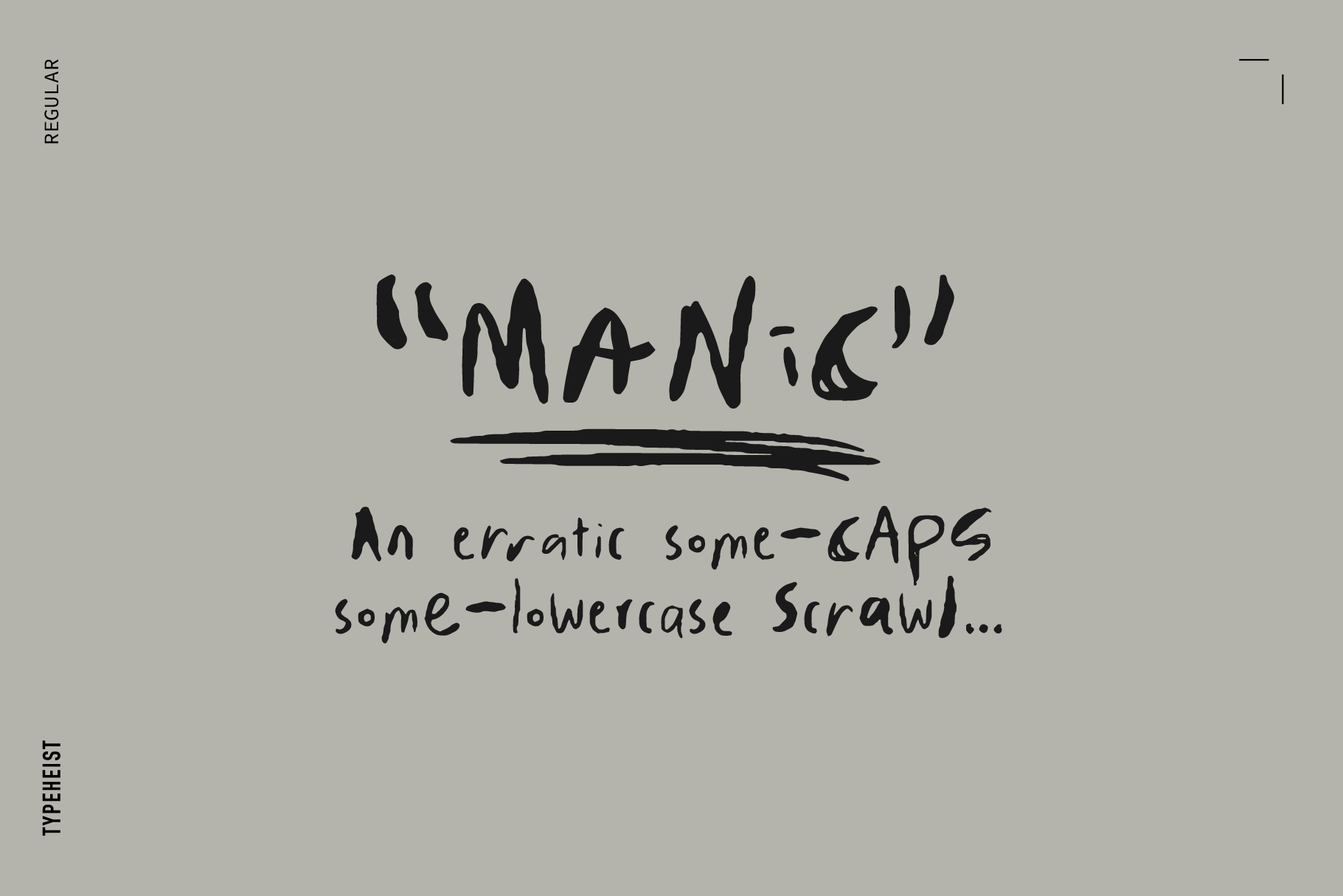
La Belle Epoque
La Belle Epoque is a charming, all-caps handwritten font with fast signature-style strokes and textured ink. It embraces it's imperfections, and that's what makes it grab your attention, especially when paired with a contrasting clean font.
This font comes with a Regular set and an Alternate Set, allowing you to mix-up different letterforms to create your own custom text layouts and maintain handwritten realism.
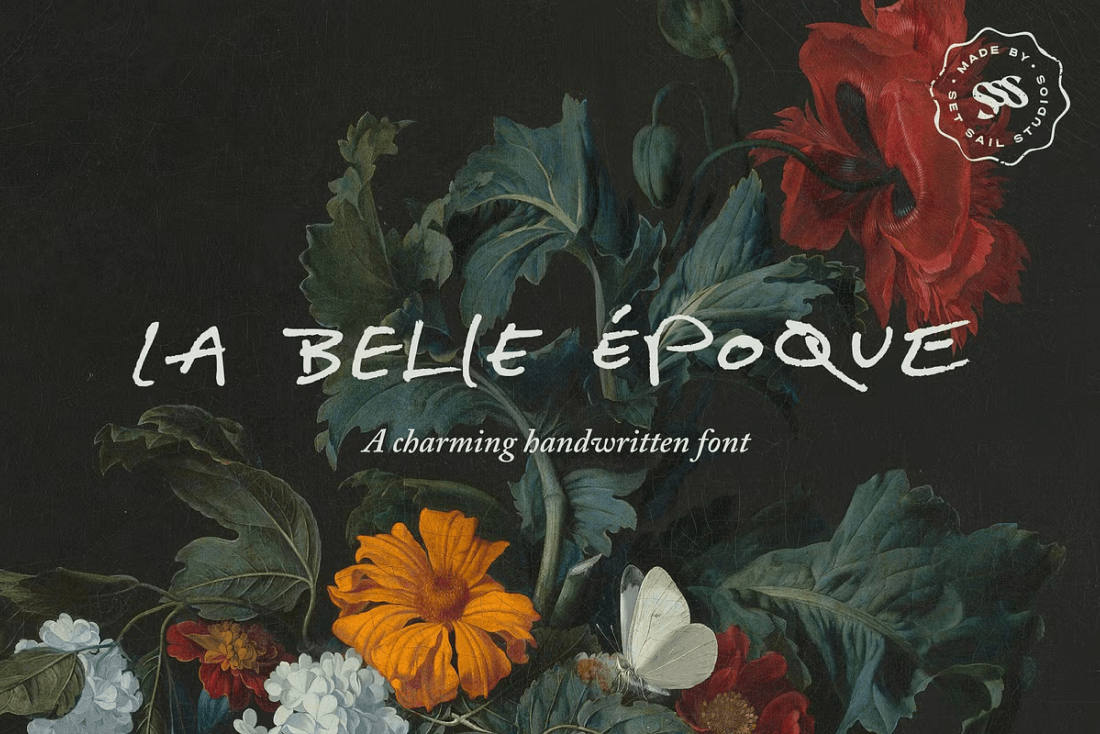
Cactus Jack
Cactus Jack is more than just a font. It's a feeling in your bones, it's a perspective on life, it's a war cry to be heard... But it's also a font. This gritty and oddly stylish font pack comes with not one BUT TWO hand drawn fonts. That's over 125 regular character variations and 50+ international language characters. This guarantees you never have to have repetitive characters in your designs. Mix-n-match to your heart's desire!
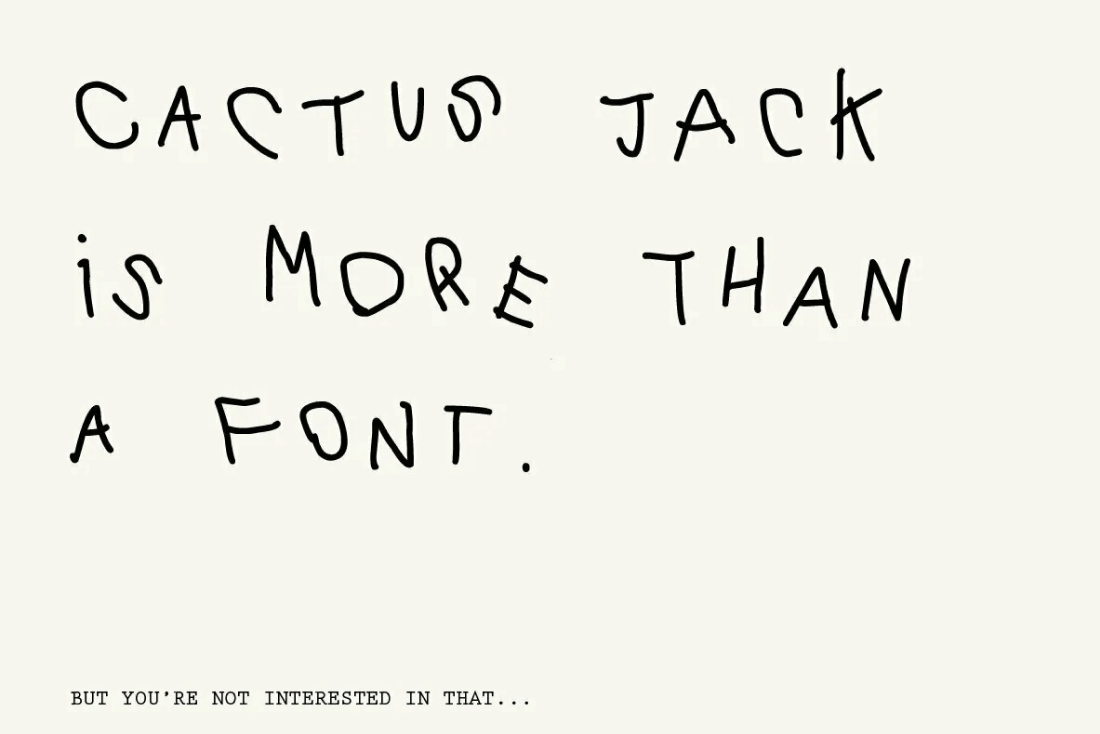
Pandemonium
"Wild uproar, unrestrained disorder; tumult or chaos". True to its name, Pandemonium font is exactly that: wild, chaotic and super erratic.
This messy handwriting font doesn't follow any rules. It's skinny, it's wide, it's bold, it's scratchy, it's jagged and unpredictable. And yet somehow, amongst it's disorder, each letter harmonises with the next one.
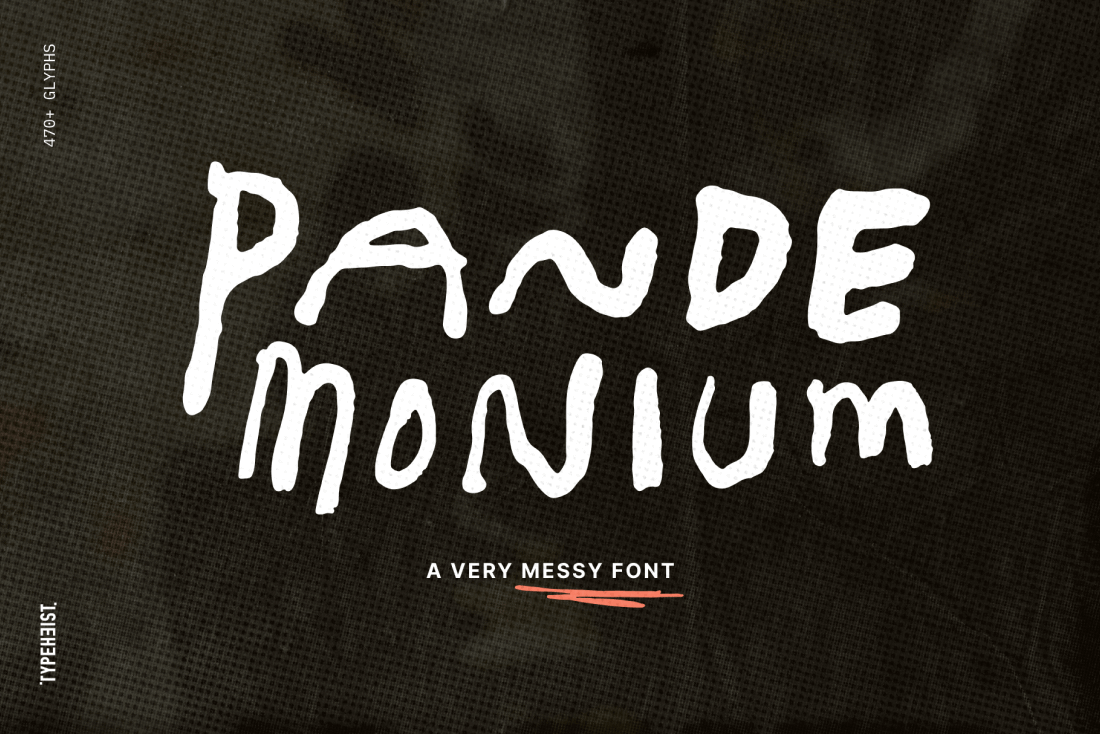
Sad Poem
A sad little pen font for your sad little handwritten poems :')
Sad Poem font boasts an extensive character set, including multi-lingual characters, custom ligatures, and an extended symbol set. With both uppercase and lowercase casing, this font provides the perfect canvas for expressing your emotions on paper.
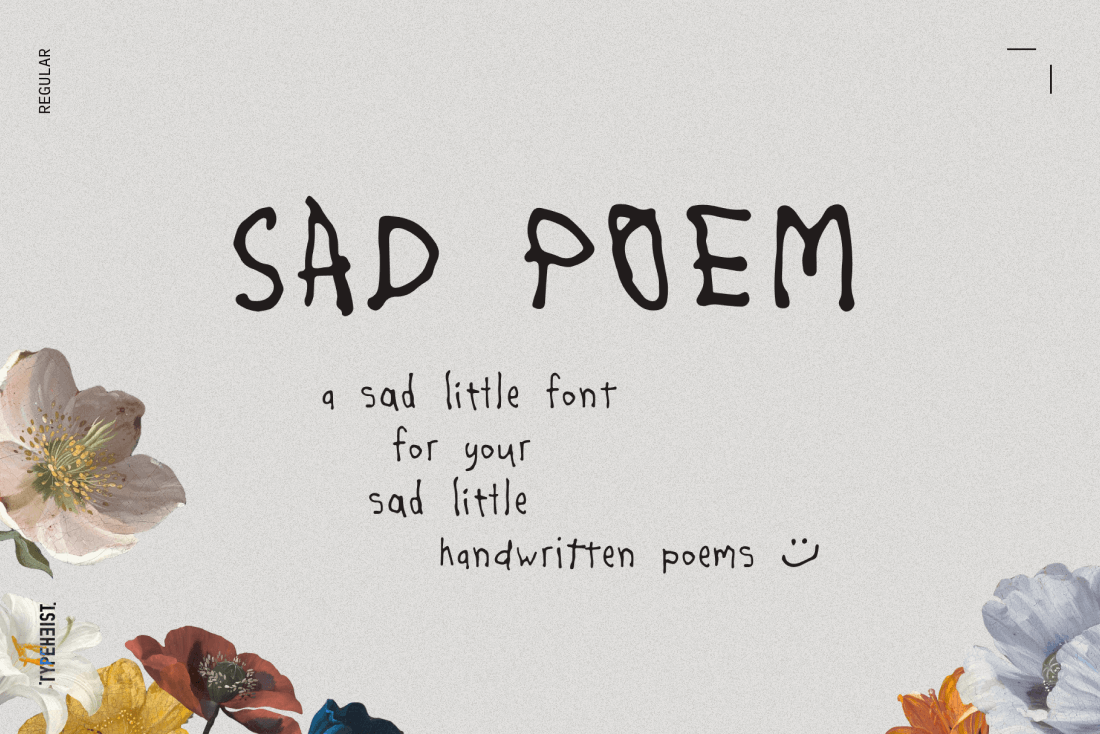
Mayflores
"Mayflores" by PeachCreme is a straightforward, brush-stroke style font with a casual, down-to-earth character.
Each letter, whether uppercase or lowercase, has its own unique twist, making it stand out in any context. With additional ligatures and alternatives, it gives you the versatility to make your design distinctive. The font preview shows exactly what you can expect, ensuring 'Mayflores' delivers a genuine touch to your projects.
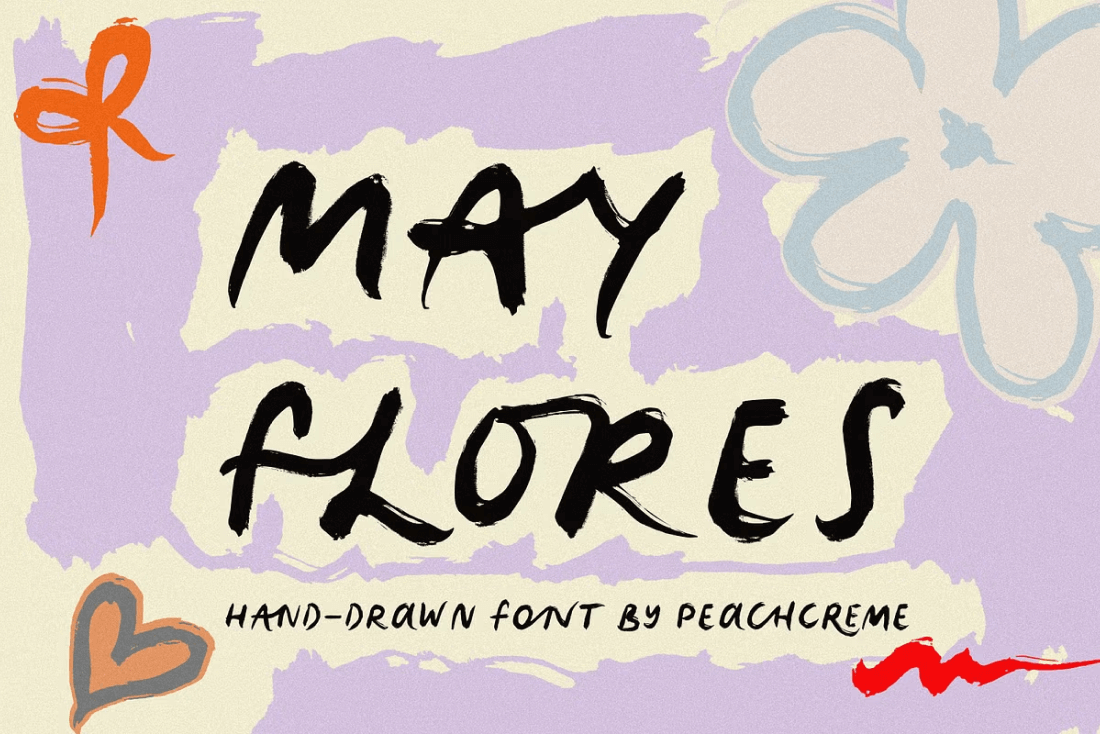
Infamous
Infamous is a slightly italicised messy handwriting font. It's rough, scratchy and has a unique textured edge.
There are over 360 unique glyphs in total in this typeface, including hand drawn scribble characters which are available by keyboard shortcuts (see images). These imperfect sketches complement the typeface perfectly, adding that extra personality to your projects.
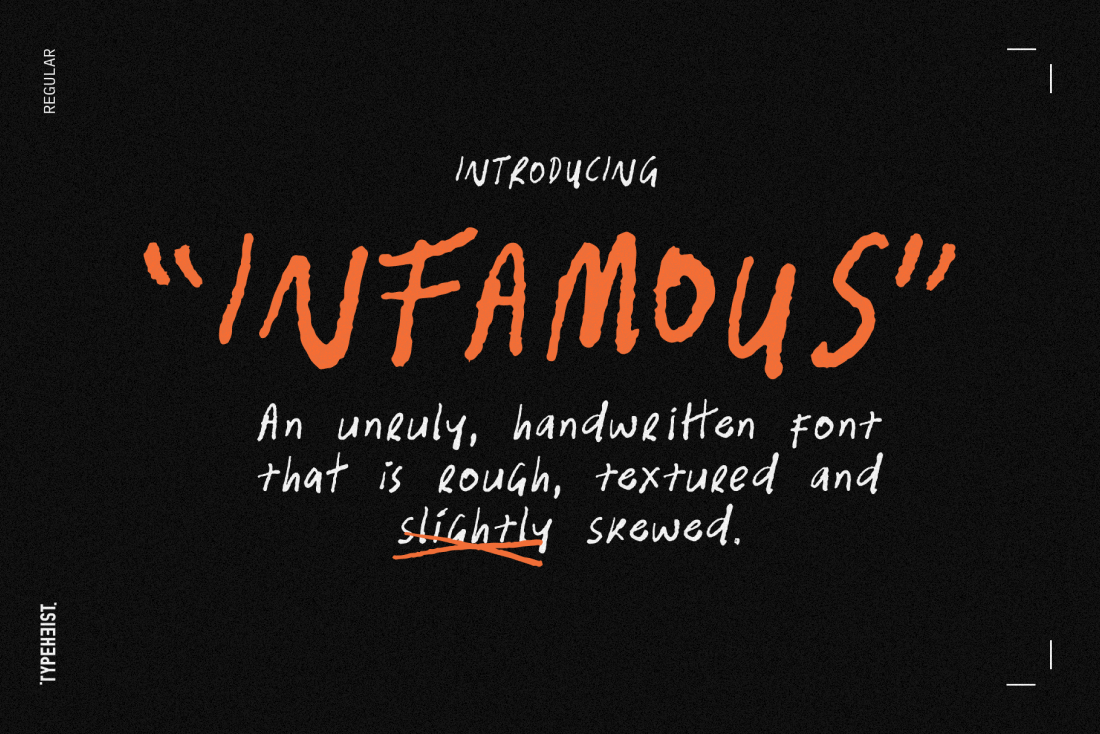
Ugly Dave
Ugly Dave is not a 'nice' font... It's messy and childish and some may even call it yuck. But you can be confident in knowing that it is most definitely unique (and it is kinda charming). It has over 500 glyphs and ligatures, ensuring that it looks just like the real deal (a bad handwriting font).
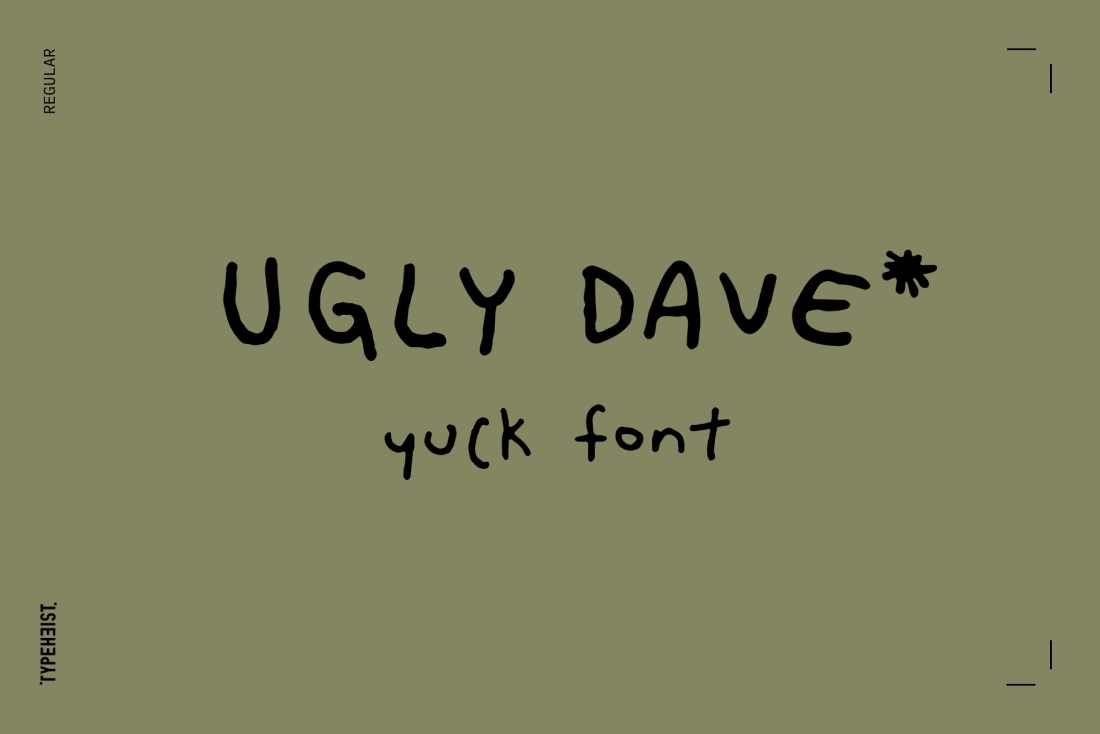
Quisas
Quisas, a pack of loosy handwriting fonts with all caps style, mix it up with uppercase and lowercase and you'll get a different vibes from it. Oh and it comes with SVG version too, just in case you need to look more natural in latest Adobe Photoshop style.
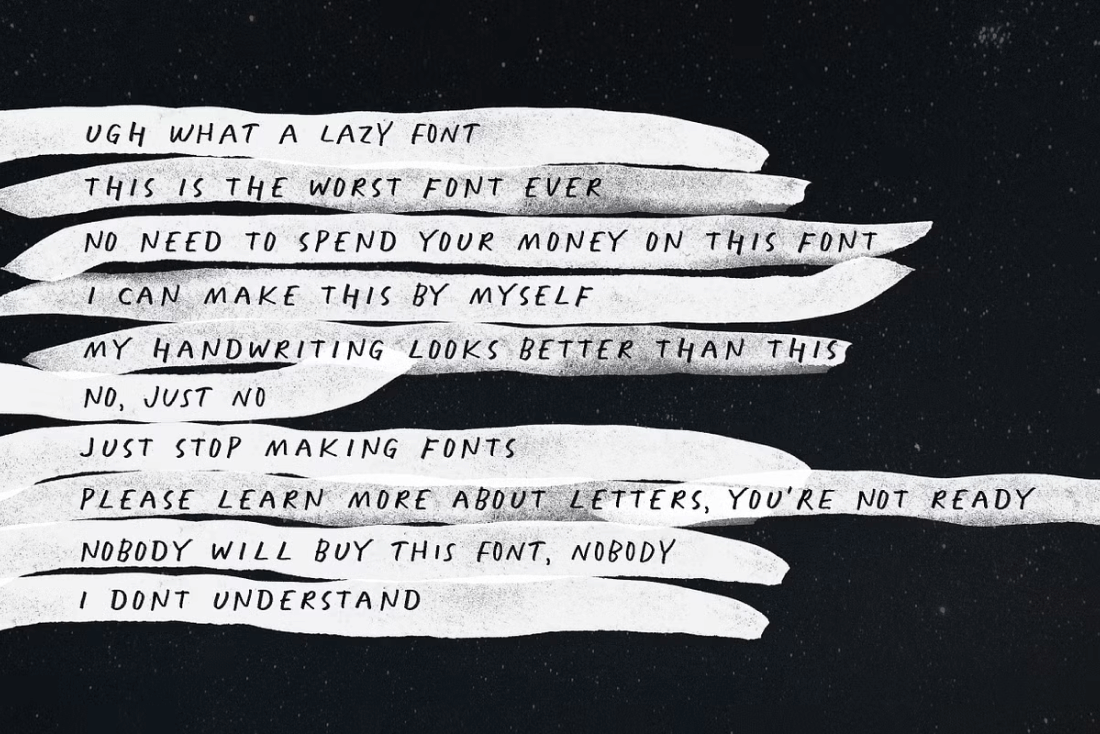
The Blank Weirdos
The Blank Weirdos is an organic messy handwritten font that conveys a sense of spontaneity. The Blank Weirdos Handwritten Font is packed with everything you need, including uppercase and lowercase letters, numbers, and punctuation. Multilingual support.
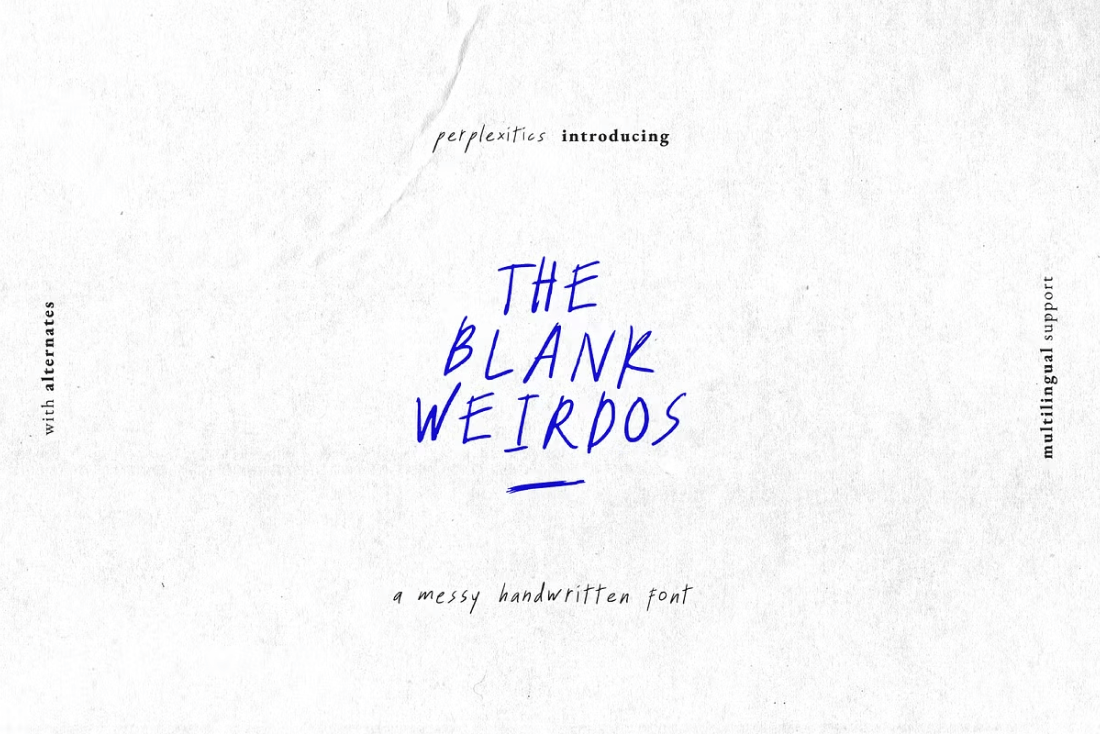
Prickly Pear
Here's a font with a special backstory. Prickly Pear is an offbeat handwritten font, created in a moving car, on the way to the Simpson Desert.
Prickle Pear's 160+ ligatures help shape it's erratic and rugged feel. It's got messiness, it's got multi-linguals, it's got uppercase and lowercase and it's got a lot of character.